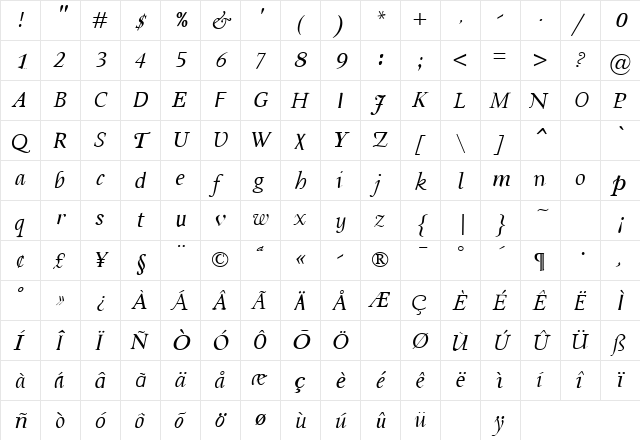
Quodlibet Italic
Design Context for Quodlibet Typeface
Quodlibet takes a measured approach to typography — its balanced proportions and neutral character make it a reliable workhorse for both digital and print work. Its italic angle brings a sense of urgency and motion to the letterforms.
Pro Tip: Try Quodlibet for annotation and caption copy alongside an upright companion — the contrast in angle creates a dynamic but ordered typographic system.